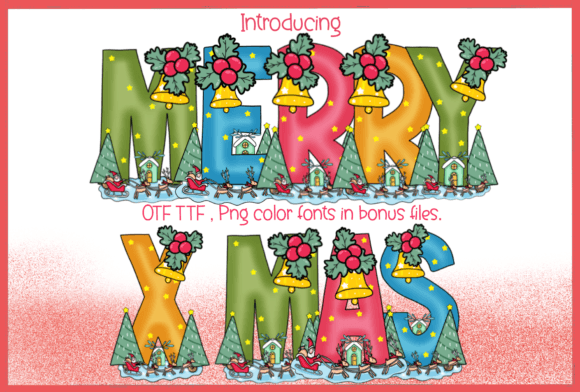
Introducing Merry X Mas Font, a colorful and captivating typeface that will infuse the joy of Christmas into your designs. Created by Itme_digitalart, this font is the ultimate choice for anyone seeking the best font for small displays. With its festive and decorative style, Merry X Mas font will instantly bring a whimsical and holiday-inspired touch to your projects.
Imagine your holiday cards, gift tags, and seasonal decorations adorned with the cheerful motifs of Santa Claus, jingling bells, and mistletoe. Merry X Mas font encapsulates the true spirit of Christmas, spreading joy and warmth in every letter. The vibrant colors and intricate details of this font will capture the attention of anyone who lays eyes on it.
Not only is Merry X Mas font visually stunning, but it also offers a wide range of creative possibilities. Whether you're designing invitations for a Christmas party or creating festive banners for your online store, this font will elevate your designs and make them truly unforgettable. Its versatility allows it to be used in various contexts, leaving a lasting impression on your audience.
But it doesn't stop there. By using Merry X Mas font, you'll tap into the emotional connection that people have with the holiday season. The mere sight of this font will evoke feelings of nostalgia, excitement, and anticipation. It will transport your audience back to their childhood memories of unwrapping presents, singing carols, and sipping hot cocoa by the fireplace.